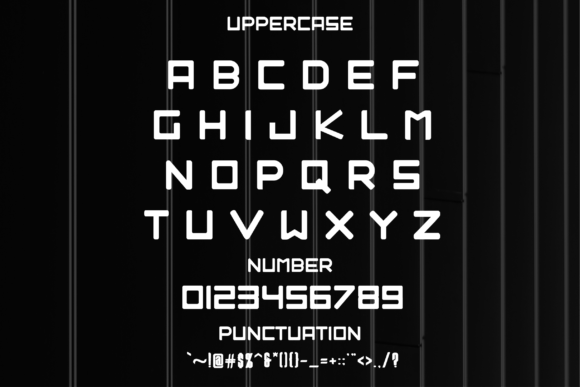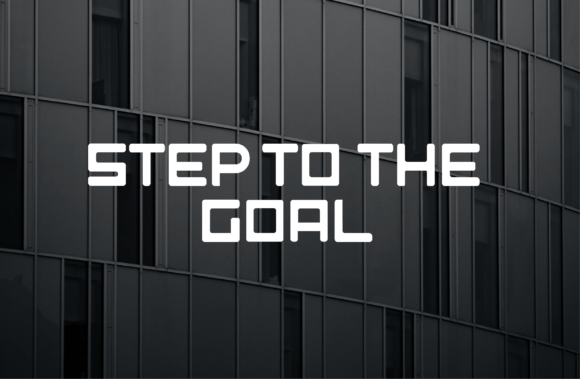
Goriag Font: The Ultimate Choice for Modern Designs
Are you tired of using the same old fonts for your designs? Look no further than the Goriag Font, a sans serif font that is taking the design world by storm. This font is really cool and suitable for technology and sports, making it the perfect choice for designers and crafters looking to add a touch of modernity to their work.
What Makes Goriag Font So Special?
With its strong and powerful sans serif style, the Goriag Font is perfect for creating bold and eye-catching designs. Its clean lines and sleek appearance make it ideal for use in a variety of applications, including branding, logos, posters, taglines, magazine illustrations, and more.
Key Features of Goriag Font
- Versatility: The Goriag Font is incredibly versatile, making it suitable for use in a wide range of design projects.
- Legibility: The font’s clean and simple design ensures that it remains legible even at small sizes.
- Customizability: The Goriag Font can be easily customized to suit your design needs, making it perfect for creating unique and personalized designs.
Why Designers and Crafters Love Goriag Font
Designers and crafters love the Goriag Font for its modern and edgy appearance. It’s perfect for creating designs that require a bold and attention-grabbing font. Whether you’re working on a branding project, creating a logo, or designing a poster, the Goriag Font is sure to make your design stand out.
How to Use Goriag Font in Your Designs
Using the Goriag Font in your designs is easy. Here are a few tips to get you started:
- Pair it with other fonts: The Goriag Font pairs well with other sans serif fonts, making it perfect for use in combination with other fonts.
- Experiment with different sizes: The Goriag Font looks great at a variety of sizes, from small and subtle to large and bold.
- Add a pop of color: The Goriag Font looks great in a variety of colors, so don’t be afraid to add a pop of color to your design.
Real-World Applications of Goriag Font
The Goriag Font is perfect for a wide range of design projects, including:
- Branding: Use the Goriag Font to create a bold and memorable brand identity.
- Logos: The Goriag Font is perfect for creating logos that require a strong and modern font.
- Posters: Use the Goriag Font to create eye-catching posters that grab attention.
- Magazine illustrations: The Goriag Font is perfect for use in magazine illustrations, adding a touch of modernity to your artwork.
In conclusion, the Goriag Font is a versatile and modern sans serif font that is perfect for designers and crafters looking to add a touch of edge to their work. With its strong and powerful appearance, it’s ideal for use in a wide range of design projects, from branding and logos to posters and magazine illustrations. So why not give the Goriag Font a try and see how it can elevate your designs?